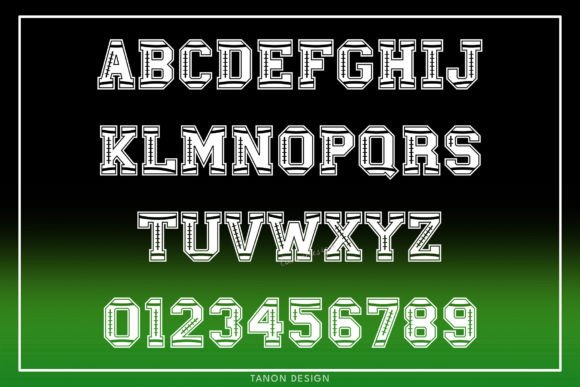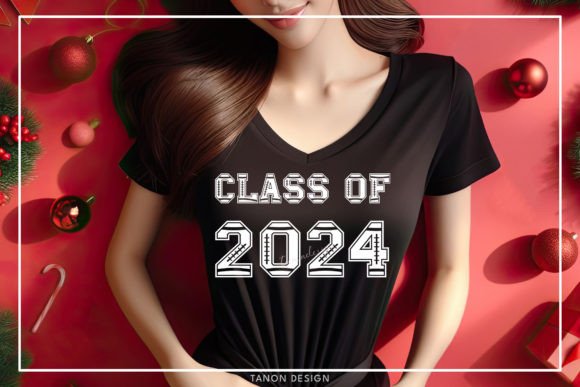
B Sporty Football Font: The Perfect Addition to Your Design Arsenal
Are you a designer or crafter looking for a font that can add a touch of fun and coolness to your projects? Look no further than B Sporty Football Font! This fantastic font is perfect for a wide range of design applications, from t-shirts and mugs to digital designs, crafts, cards, and more.
What Makes B Sporty Football Font So Special?
B Sporty Football Font is a unique and stylish font that is sure to make your designs stand out. Its fun and playful vibe makes it perfect for projects that require a bit of personality and flair. Whether you’re designing a t-shirt for a sports team, creating a digital design for a client, or making a craft for a special occasion, this font is sure to impress.
Key Features of B Sporty Football Font
- Fun and Cool Design: B Sporty Football Font has a fun and cool design that is sure to add a touch of personality to your projects.
- Versatile: This font is perfect for a wide range of design applications, from t-shirts and mugs to digital designs, crafts, cards, and more.
- Easily Readable: Despite its playful design, B Sporty Football Font is easily readable, making it perfect for designs that require a clear and concise message.
- Customizable: You can use this font to create a wide range of designs, from simple text-based designs to more complex graphics and illustrations.
Use Cases for B Sporty Football Font
B Sporty Football Font is a versatile font that can be used in a wide range of design applications. Here are just a few examples of how you can use this font in your designs:
- T-Shirts: Create custom t-shirts for sports teams, events, or promotions with B Sporty Football Font.
- Mugs: Design custom mugs for sports fans or for everyday use with this fun and cool font.
- Digital Designs: Use B Sporty Football Font to create digital designs for clients, such as social media graphics, flyers, or brochures.
- Crafts: Add a personal touch to your crafts, such as handmade cards, gift tags, or DIY projects, with this unique font.
- Cards: Create custom cards for sports-themed events, such as football games or tournaments.
Why Designers and Crafters Love B Sporty Football Font
Designers and crafters love B Sporty Football Font for its unique and stylish design. Here are just a few reasons why:
- High-Quality Design: B Sporty Football Font has a high-quality design that is sure to impress your clients or friends.
B Sporty Football Font is a fun and cool font that is perfect for designers and crafters looking to add a touch of personality to their projects. With its versatile design, easily readable text, and customizable features, this font is sure to become a staple in your design arsenal. Whether you’re designing a t-shirt, creating a digital design, or making a craft, B Sporty Football Font is the perfect choice.